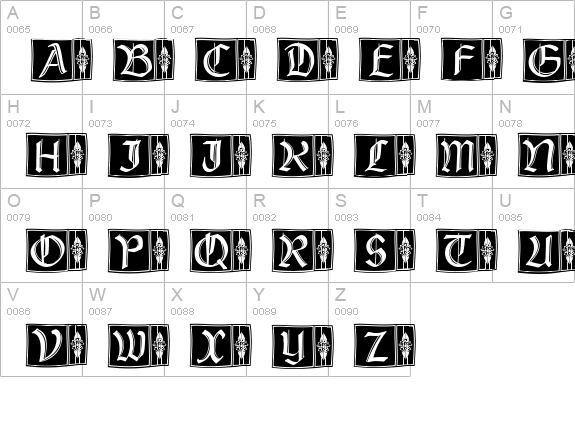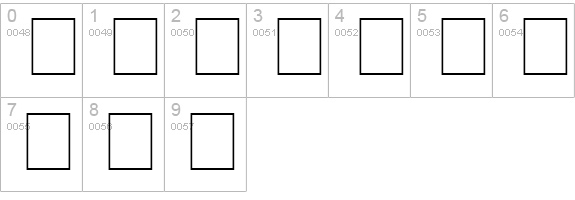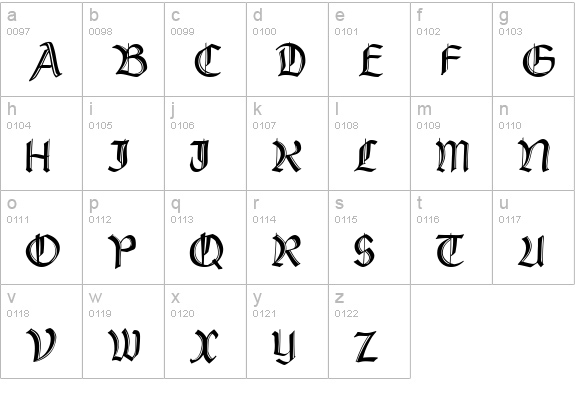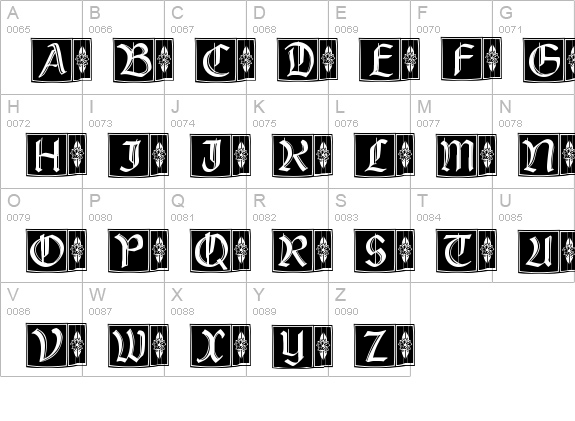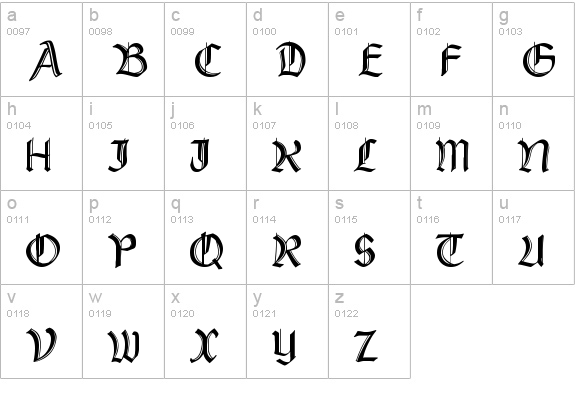
Rustick_Capitals Font Details
Rustick_Capitals font exudes a rustic and traditional charm, perfect for adding a touch of vintage elegance to your projects. Its bold and distinctive letterforms are inspired by classic calligraphy and craftsmanship, making it ideal for creating eye-catching headlines and logos. This font is not only visually appealing but also versatile, suitable for a wide range of design applications. Whether you're working on branding materials, packaging, invitations, or social media graphics, Rustick_Capitals will surely make a statement. The best part? Rustick_Capitals is available for free download at FontsMarket.com. So go ahead and elevate your designs with this timeless and elegant typeface today!